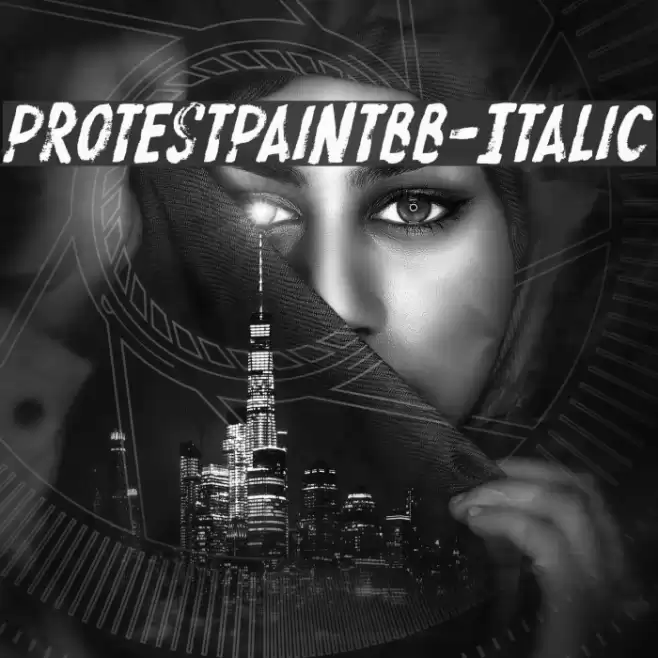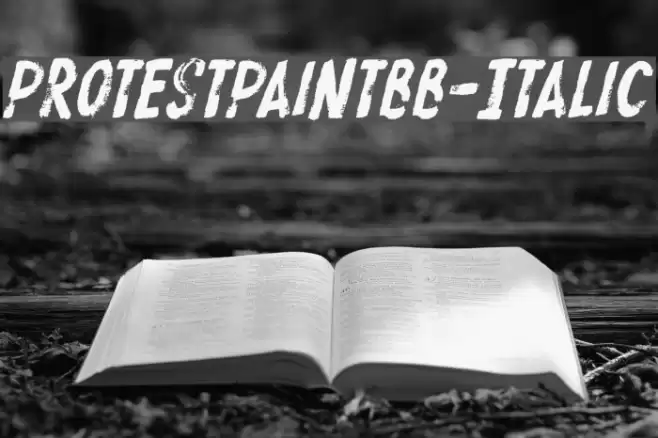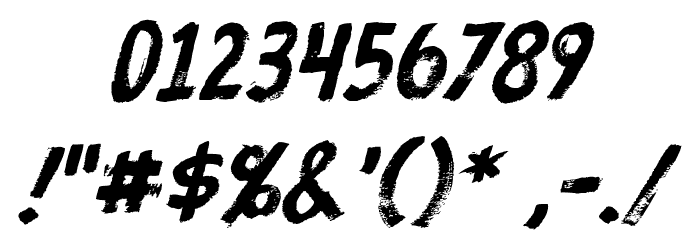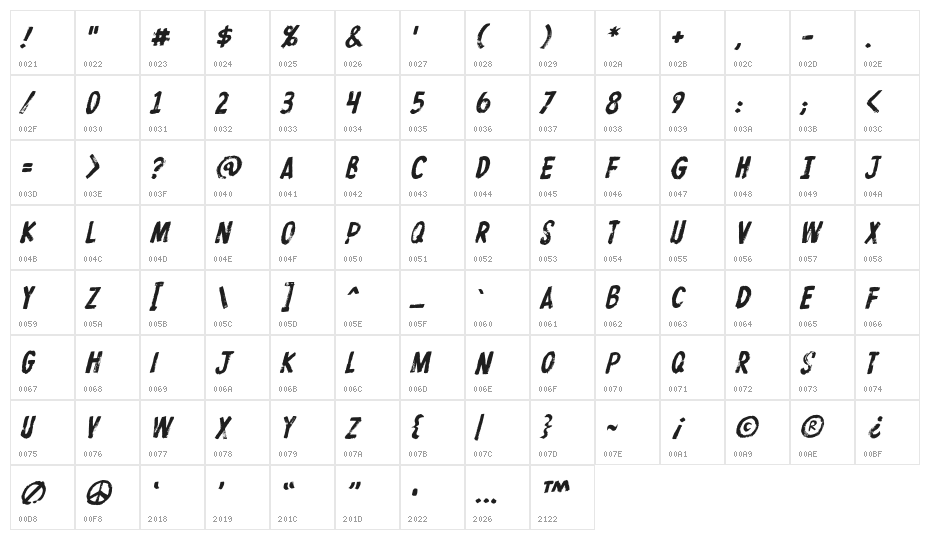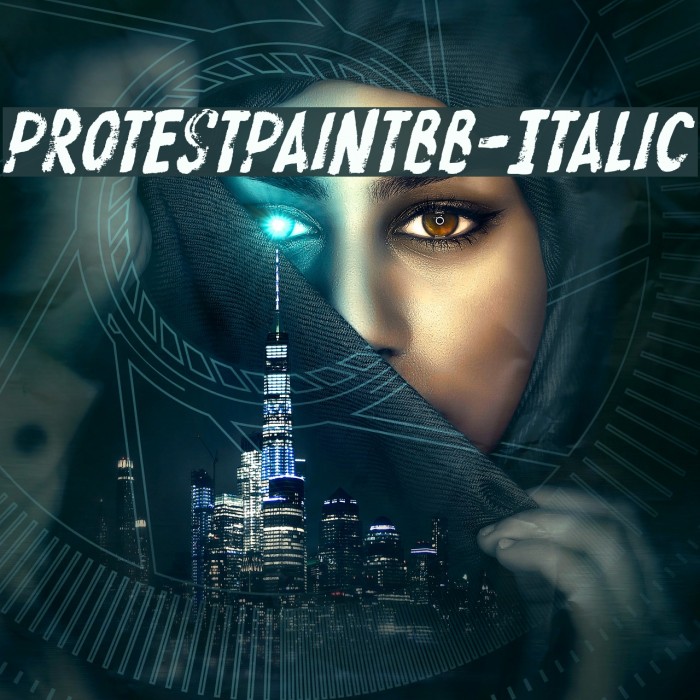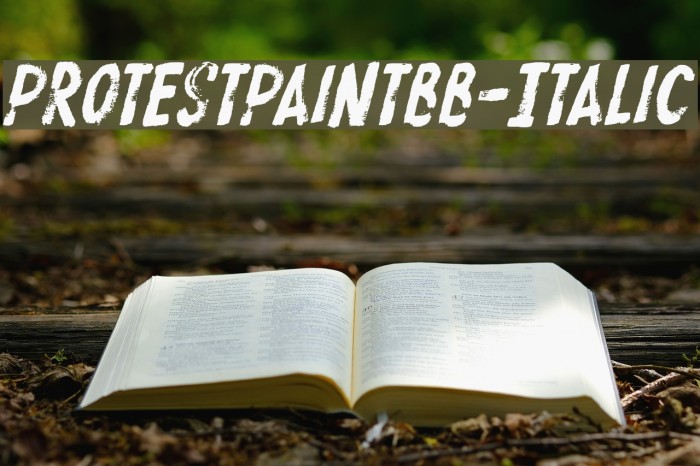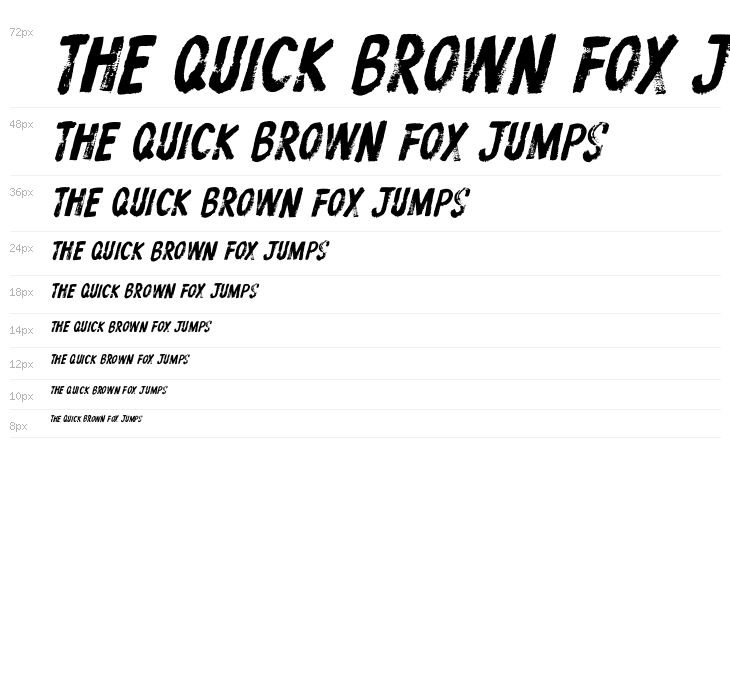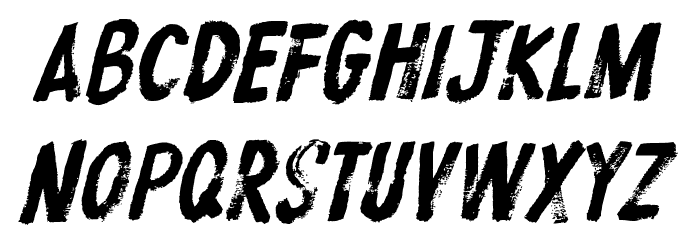
ProtestPaintBB-Italic Font
ProtestPaintBB-Italic Description
This font features a bold, distressed style that mimics the appearance of hand-painted letters. The strokes are uneven and textured, giving a raw and dynamic feel. The italic slant adds a sense of movement and urgency, making it ideal for impactful designs. The uppercase and lowercase letters maintain a consistent style, with numbers and special characters following suit. The overall look is gritty and expressive, perfect for projects that require a rebellious or artistic touch.
A bold, distressed italic font with a hand-painted, dynamic style from Uncategorized fonts.
- Proposed Projects: Ideal for protest posters, album covers, street art designs, and edgy branding projects.